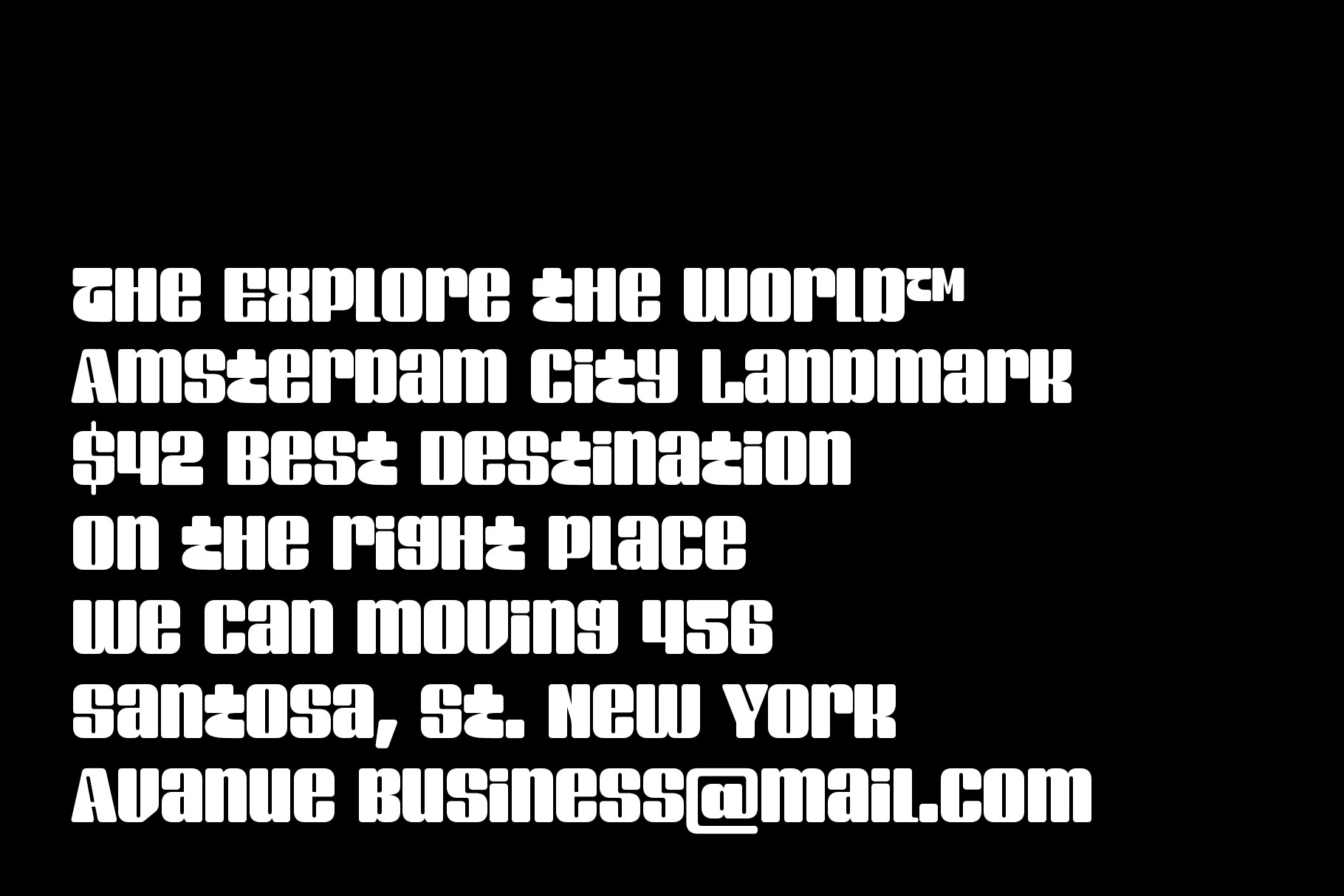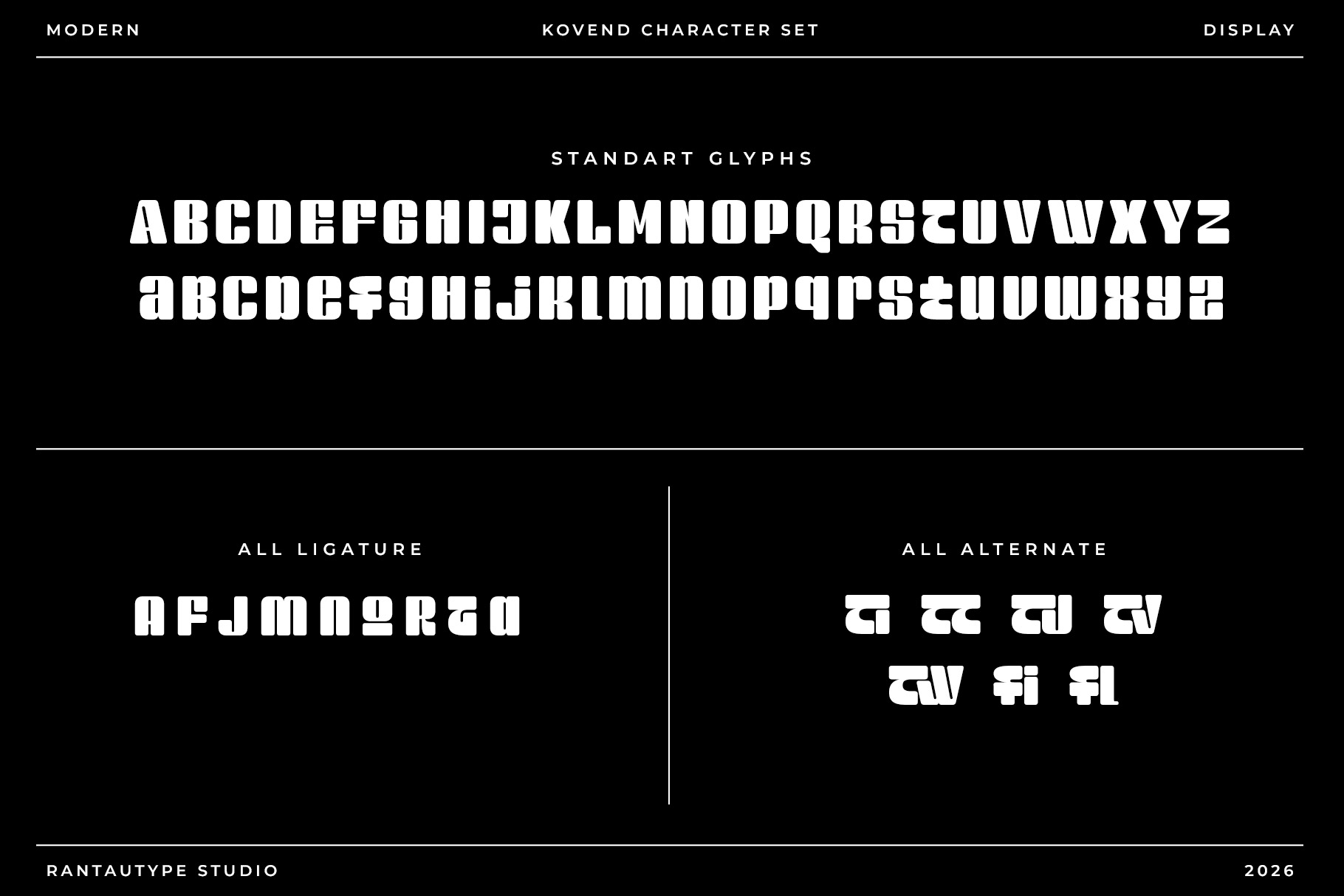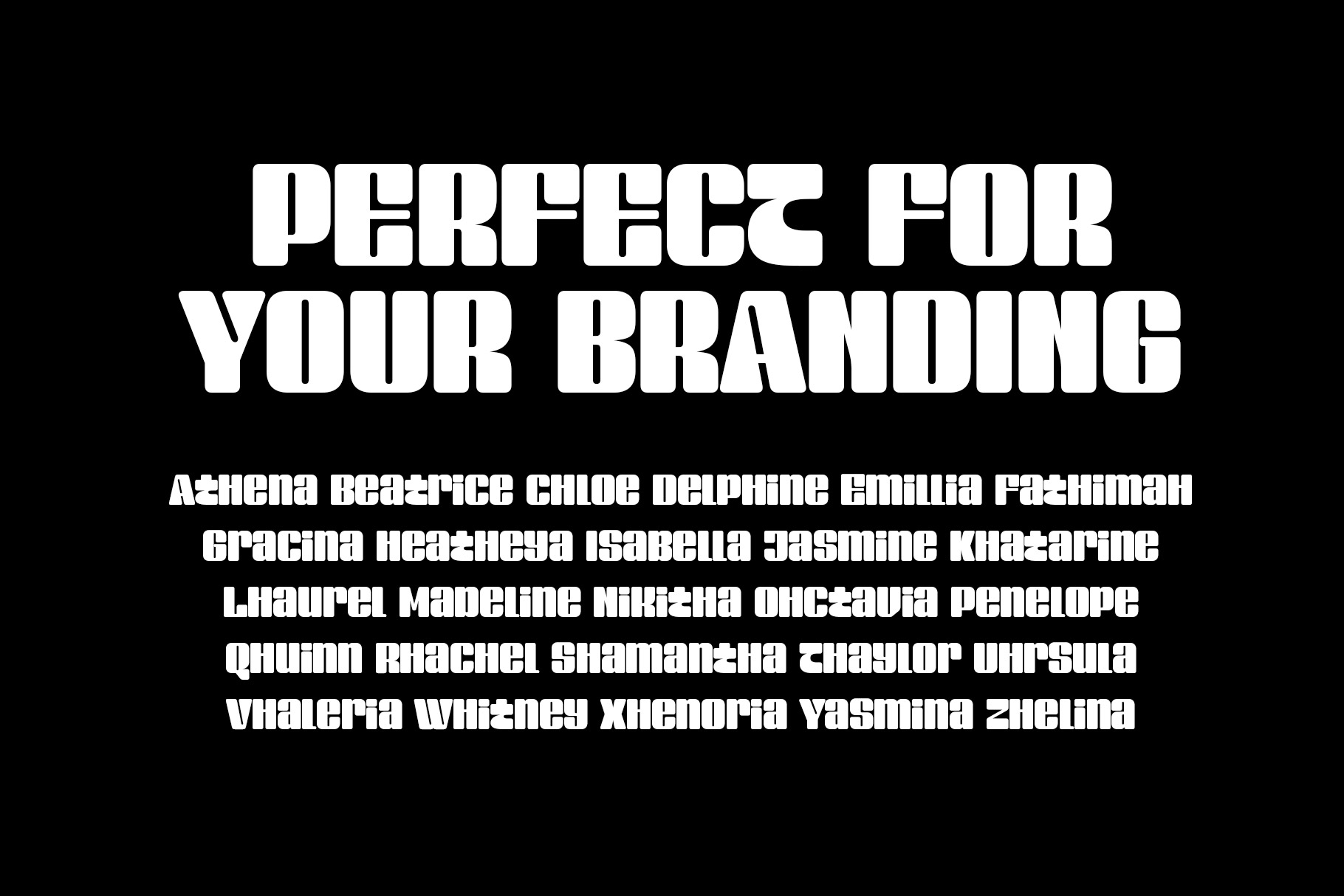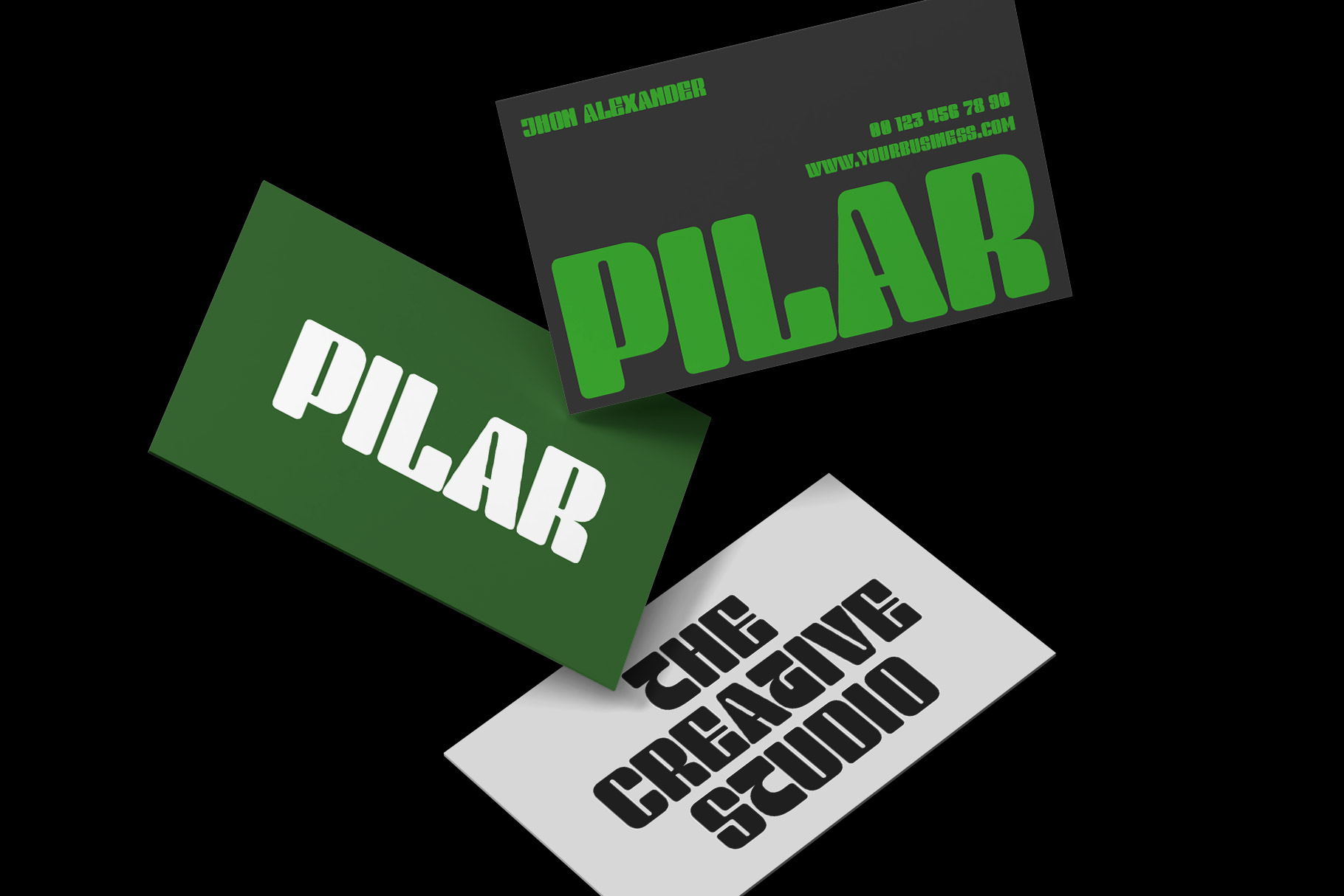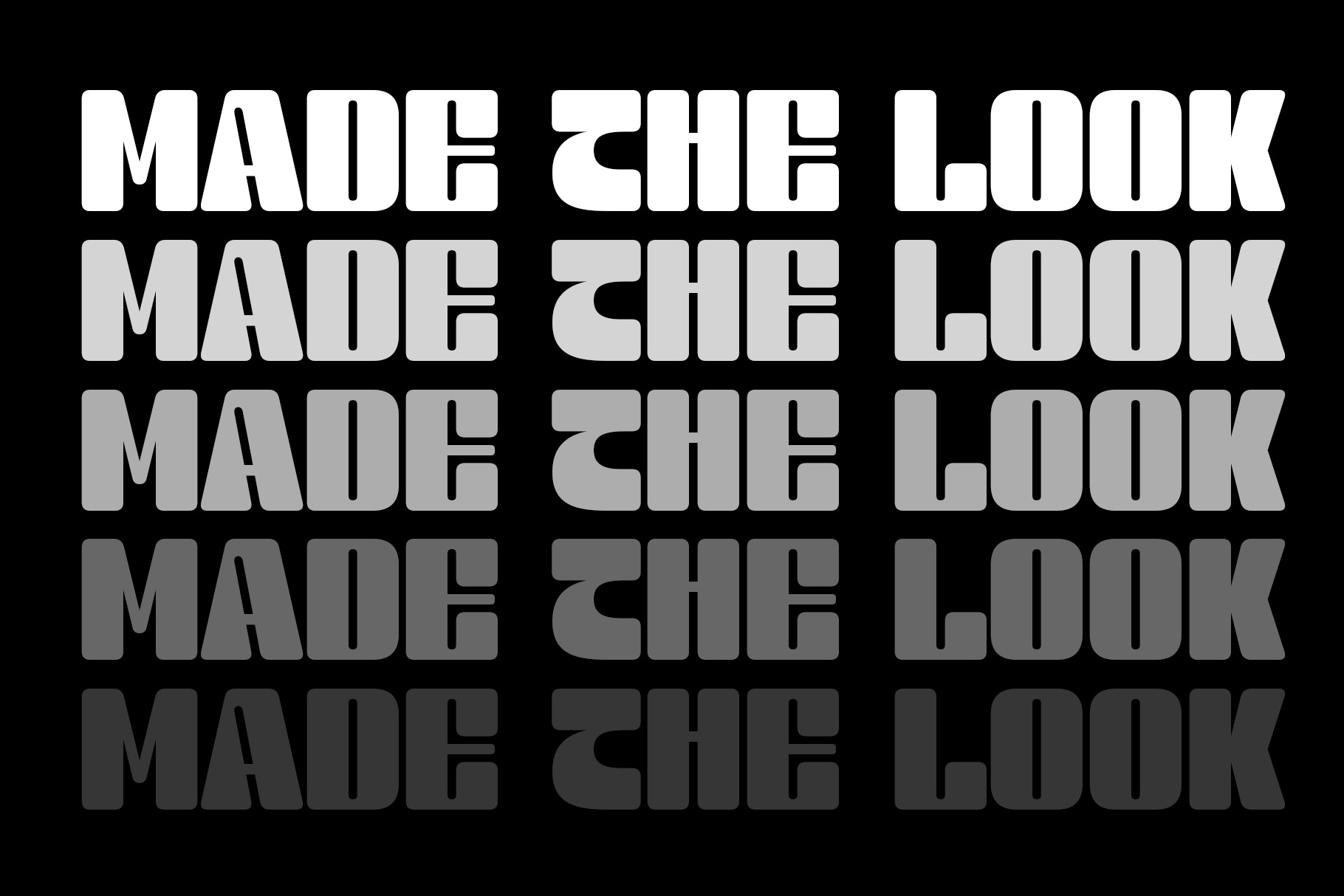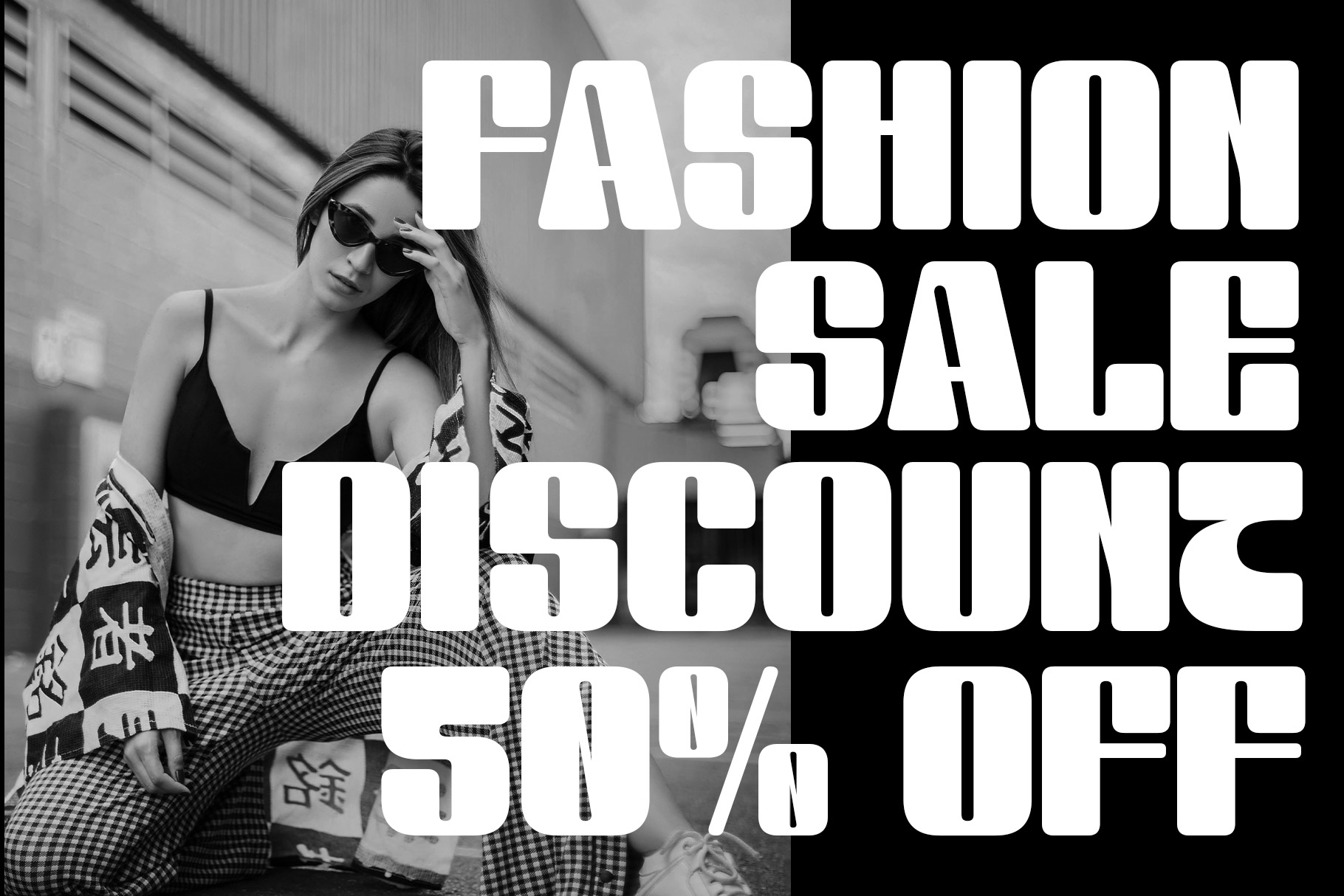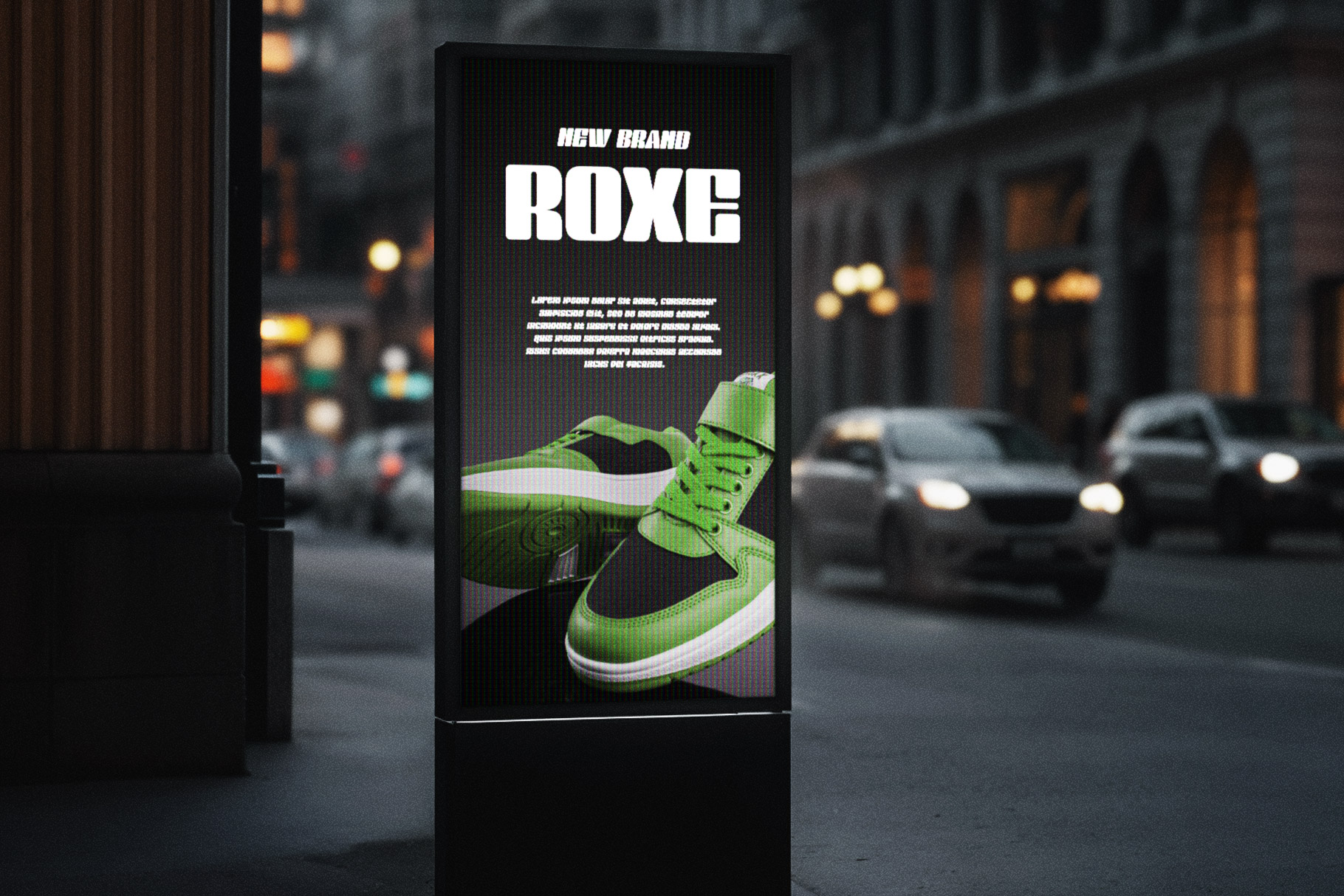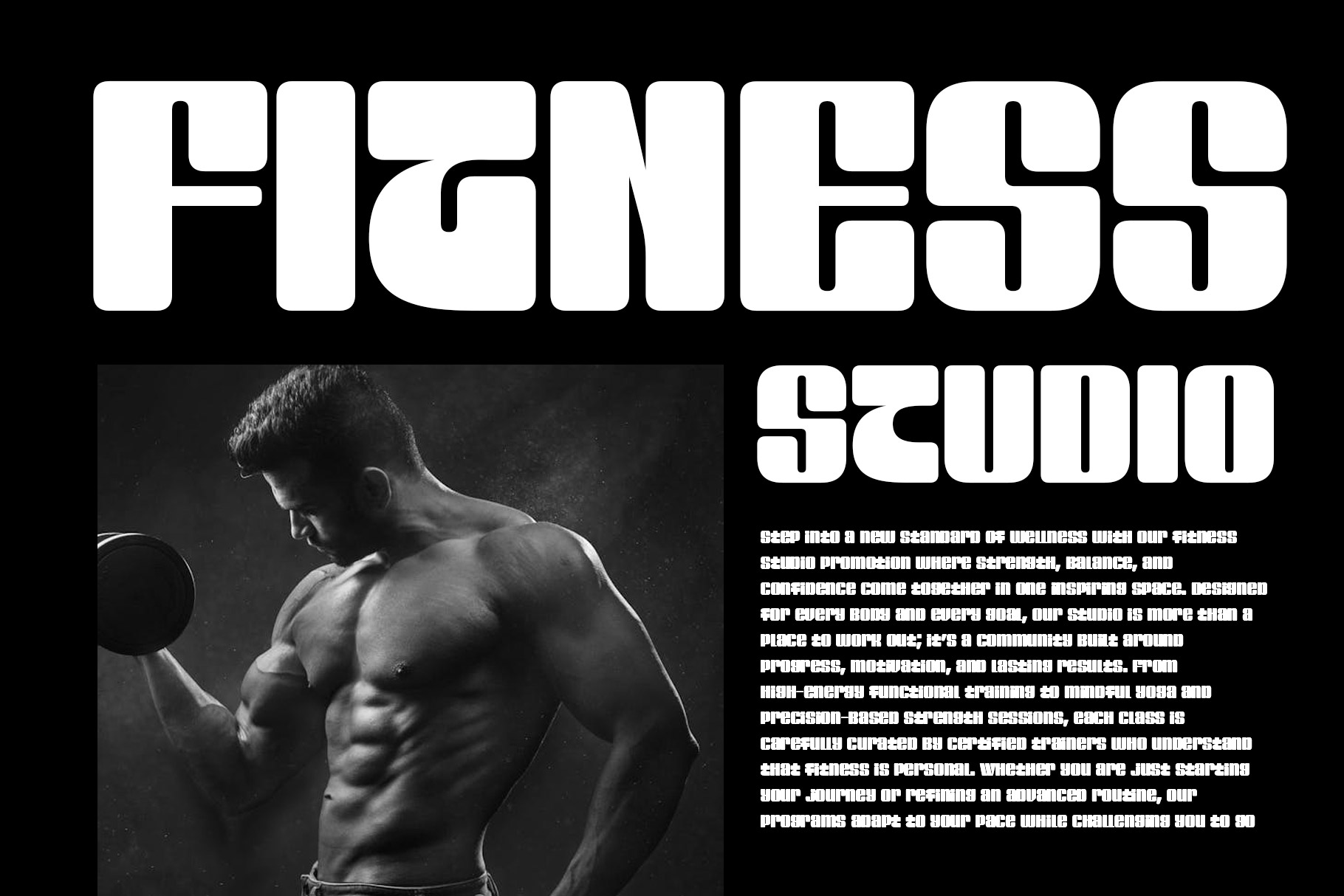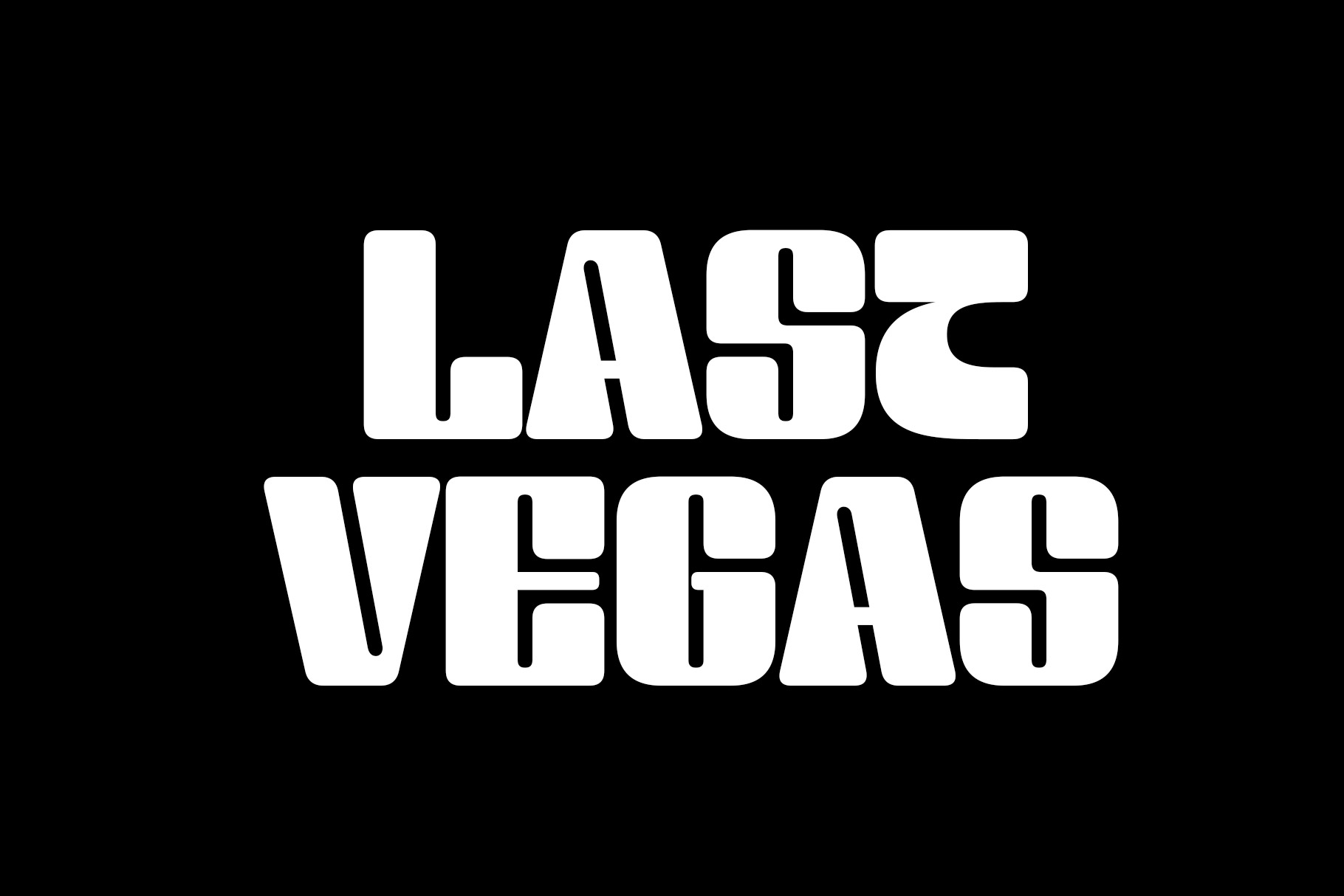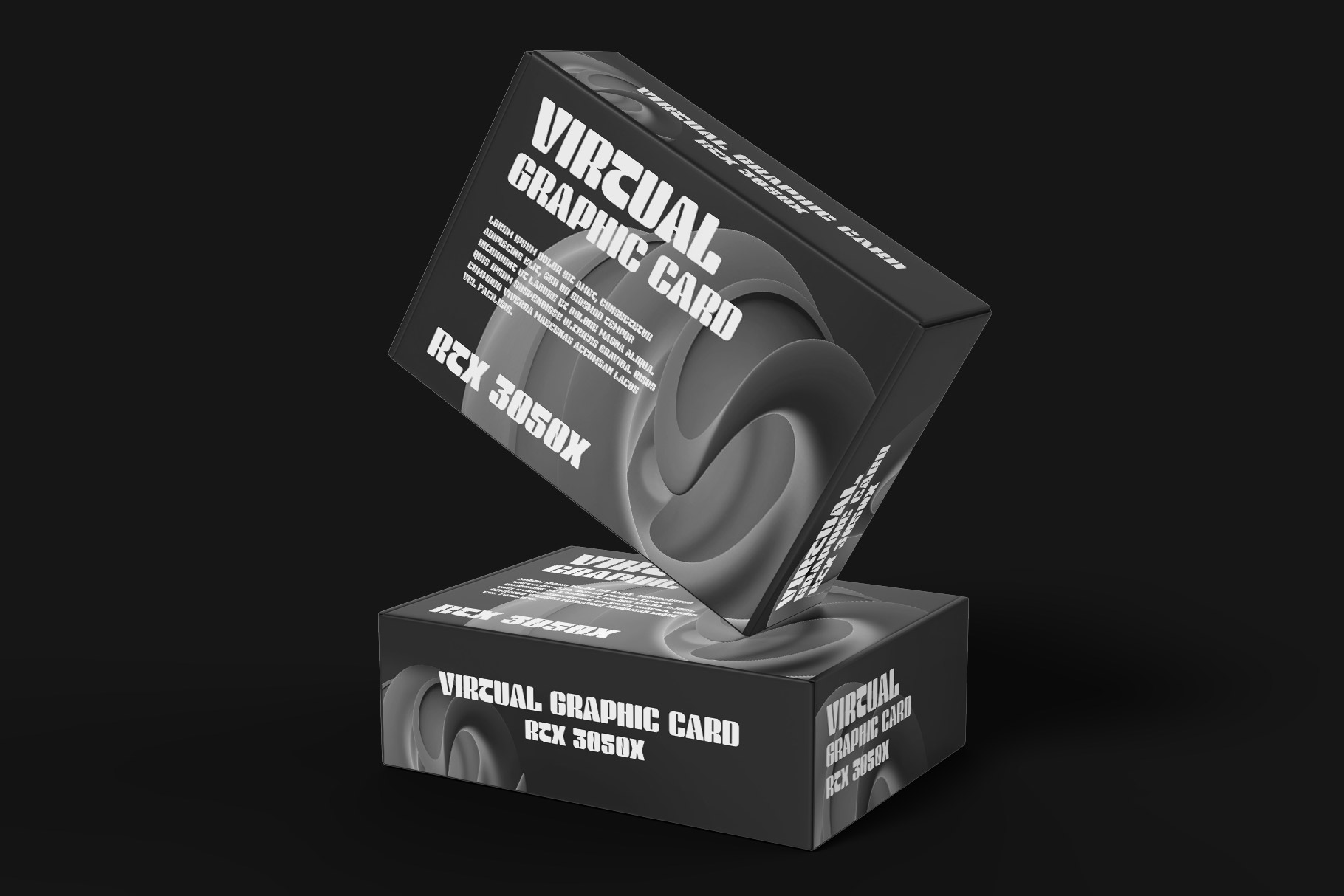
Kovend Modern Display Font
Kovend is modern sans font made by rantautype studio. Kovend come with rounded and bold shape to create confident and strong character. Kovend is a perfectly choice for any creative endeavor, creating, modern, lifestyle design such as logotype, title, cover, branding, invitations, wedding designs, display and magazine, social media posts, advertisements, printed quotes, product packaging, corporate brand, product designs, labels, photography, watermarks, special events and any other project with modern touch.